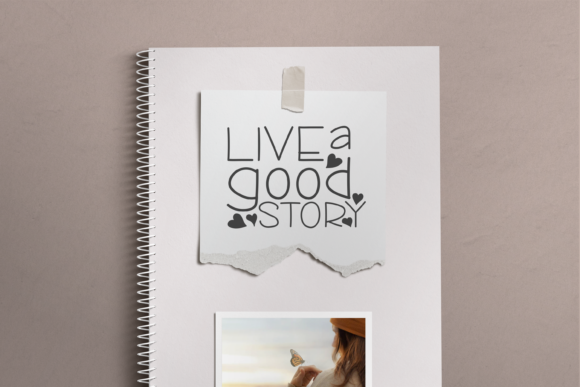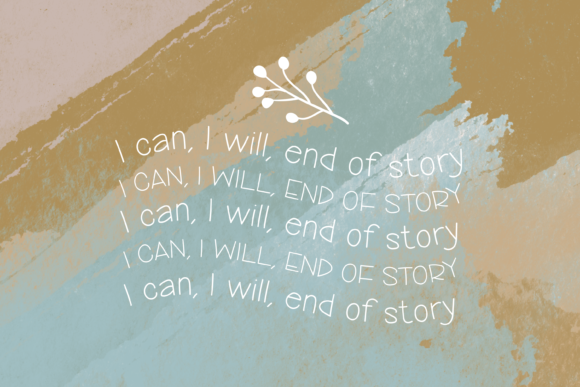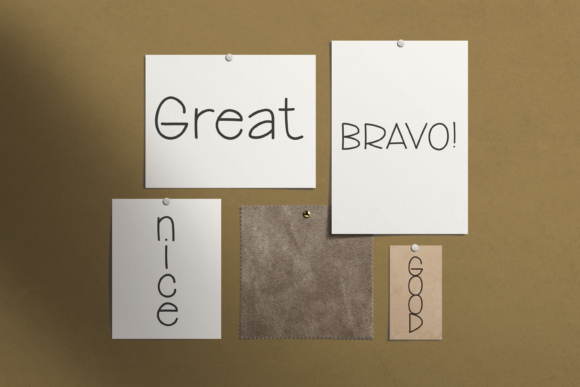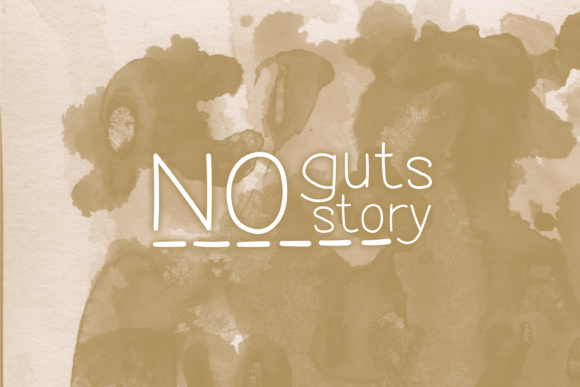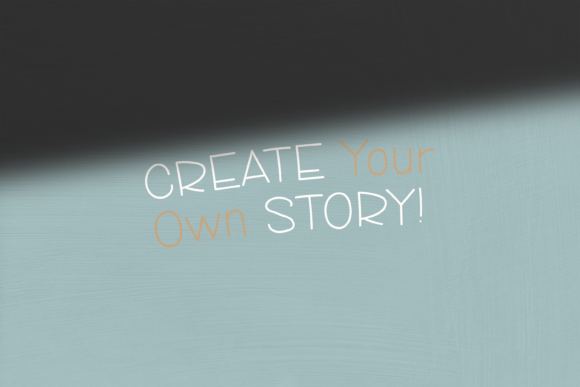
The Perfect Script for Your Story: Introducing Good Story Font
As a designer, there’s nothing quite like the thrill of creating something that sparks joy and connection with others. It’s those moments when you know you’ve made a real impact – whether it’s through a beautifully crafted logo, a heartfelt social media post, or a charming chalkboard quote.
For those looking to add a touch of whimsy and personality to their designs, Good Story Font is the perfect tool for the job. This adorable handwritten font is specifically designed to evoke the feeling of a chalkboard quote, making it an ideal choice for teaching materials, educational projects, and even decorative wall art. With its authentic look and feel, Good Story Font adds a personal and realistic touch to your designs, setting you apart from the rest.
Good Story Font Key Features
- Font Family: A unique, custom-designed font family with a range of weights and styles, including bold, italic, and condensed options.
- Stylistic Sets: Features 10 stylistic sets, allowing users to customize the font’s look and feel to suit their specific design needs.
Good Story Font Review
I recently had the chance to work with the Good Story Font and I have to say, it’s a unique and intriguing choice for designers. ✨ One of the things that stands out is its playful and whimsical feel, which is perfect for projects that require a touch of personality.
- The font’s variable font technology allows for a wide range of customization options, making it easy to tailor the look and feel to your specific project.
- The font’s italic and oblique styles add a touch of sophistication and elegance, perfect for projects that require a more refined look.
However, there are a few limitations to keep in mind ⚠️. One of the main concerns is the font’s limited support for certain languages, which may be a issue for projects that require multilingual support.
Overall, I would say that the Good Story Font is a solid choice for designers who are looking for a unique and playful font option. While it may have some limitations, its customization options and elegant styles make it a great addition to any design project.
Tips for Getting the Most Out of Good Story Font
Use Good Story Font for titles, headings, and body text to create a cohesive and visually appealing design. Experiment with different font sizes and colors to emphasize key points and create hierarchy.
Good Story Font is ideal for creative professionals, bloggers, and entrepreneurs who want to add a touch of elegance and sophistication to their designs. Use it for: